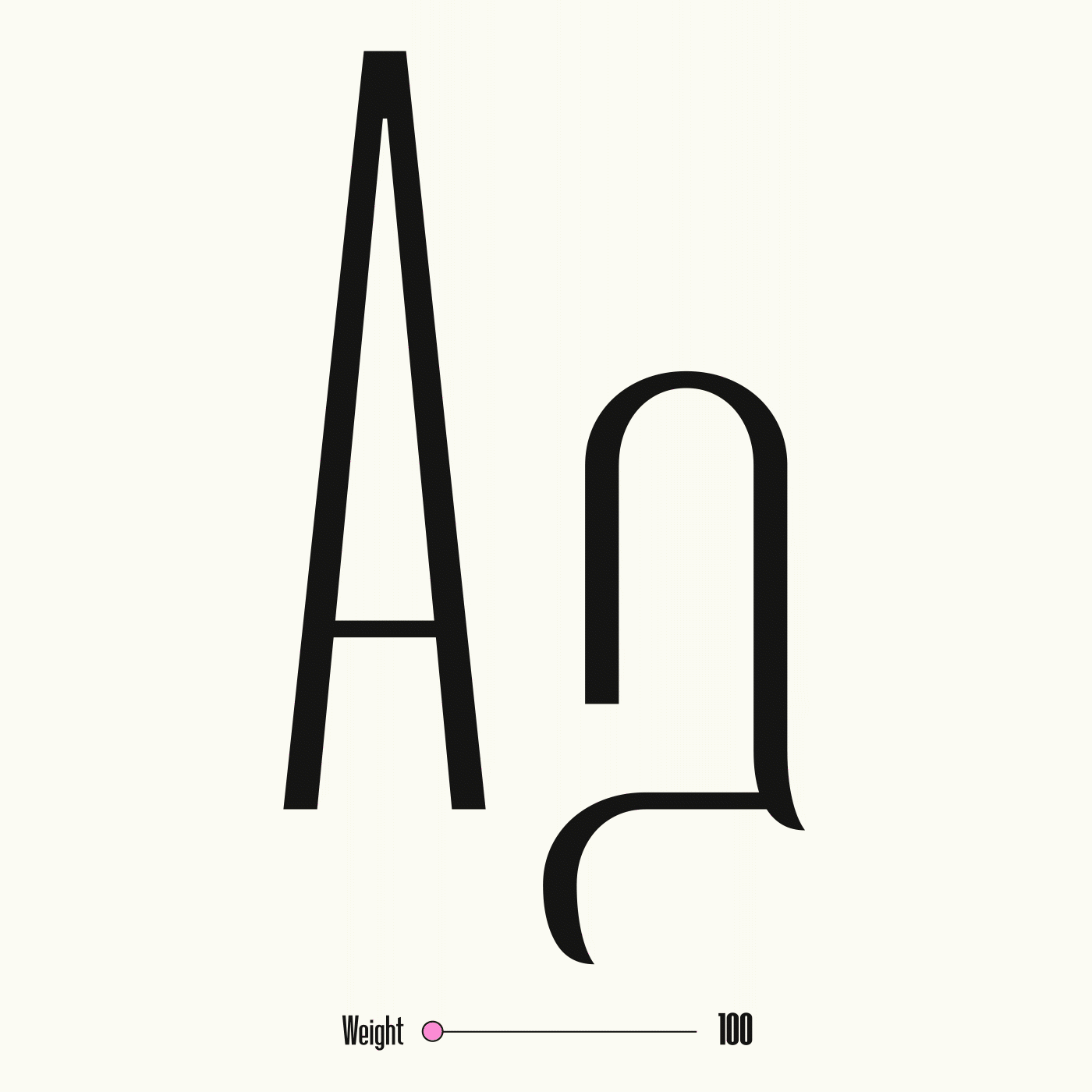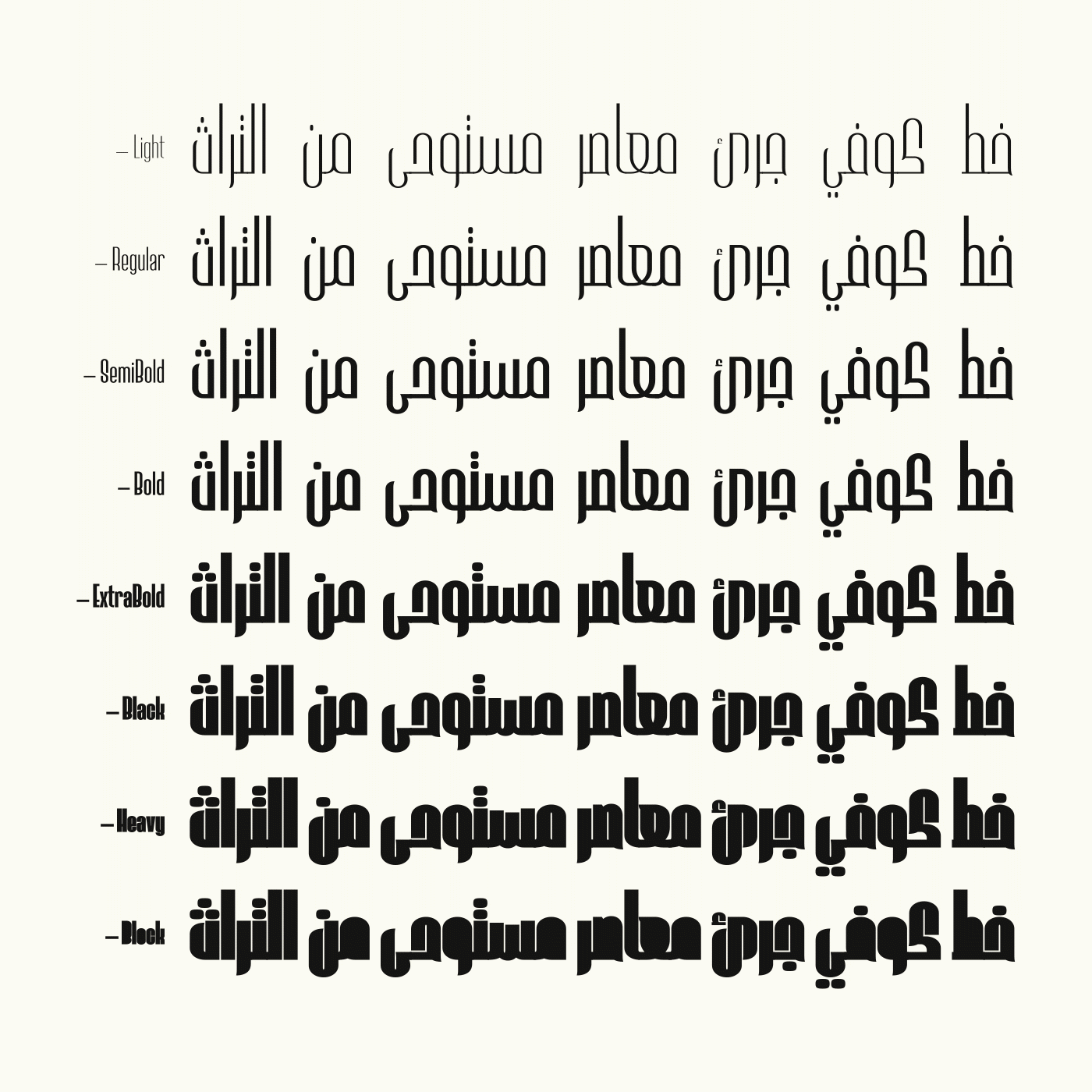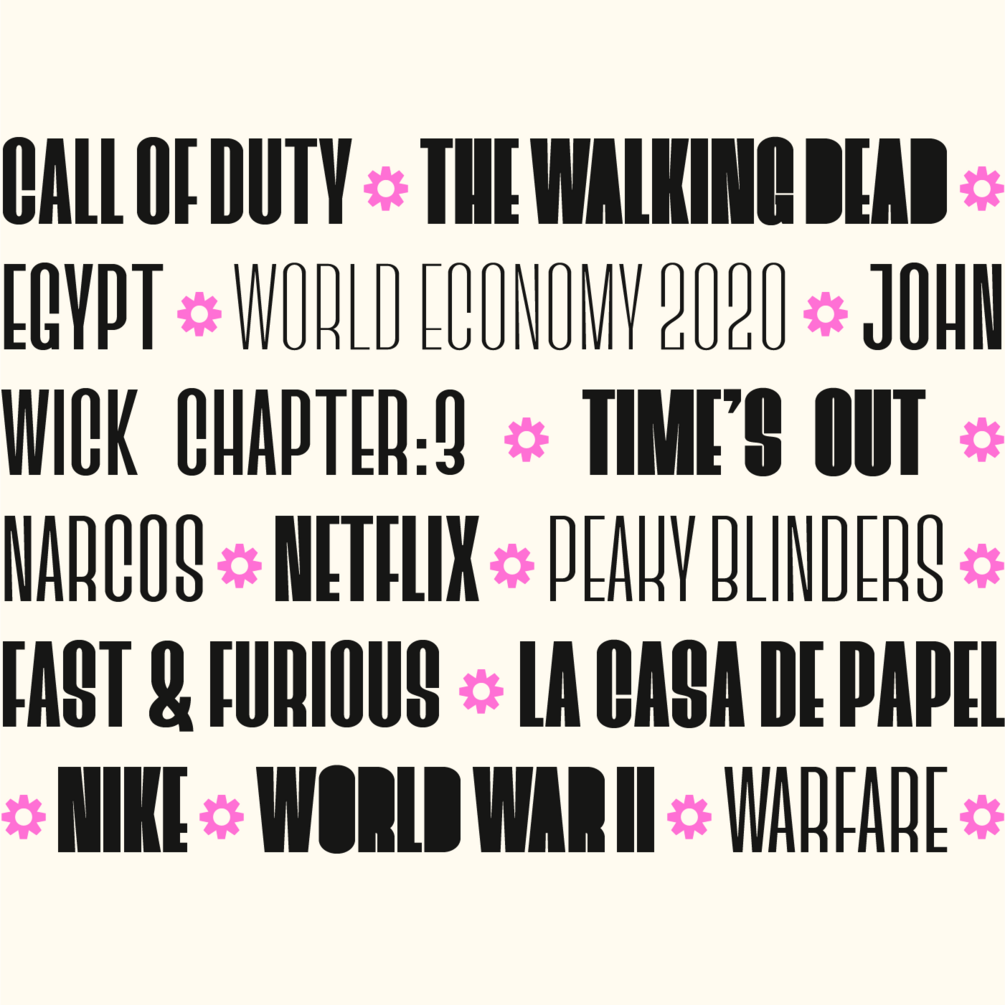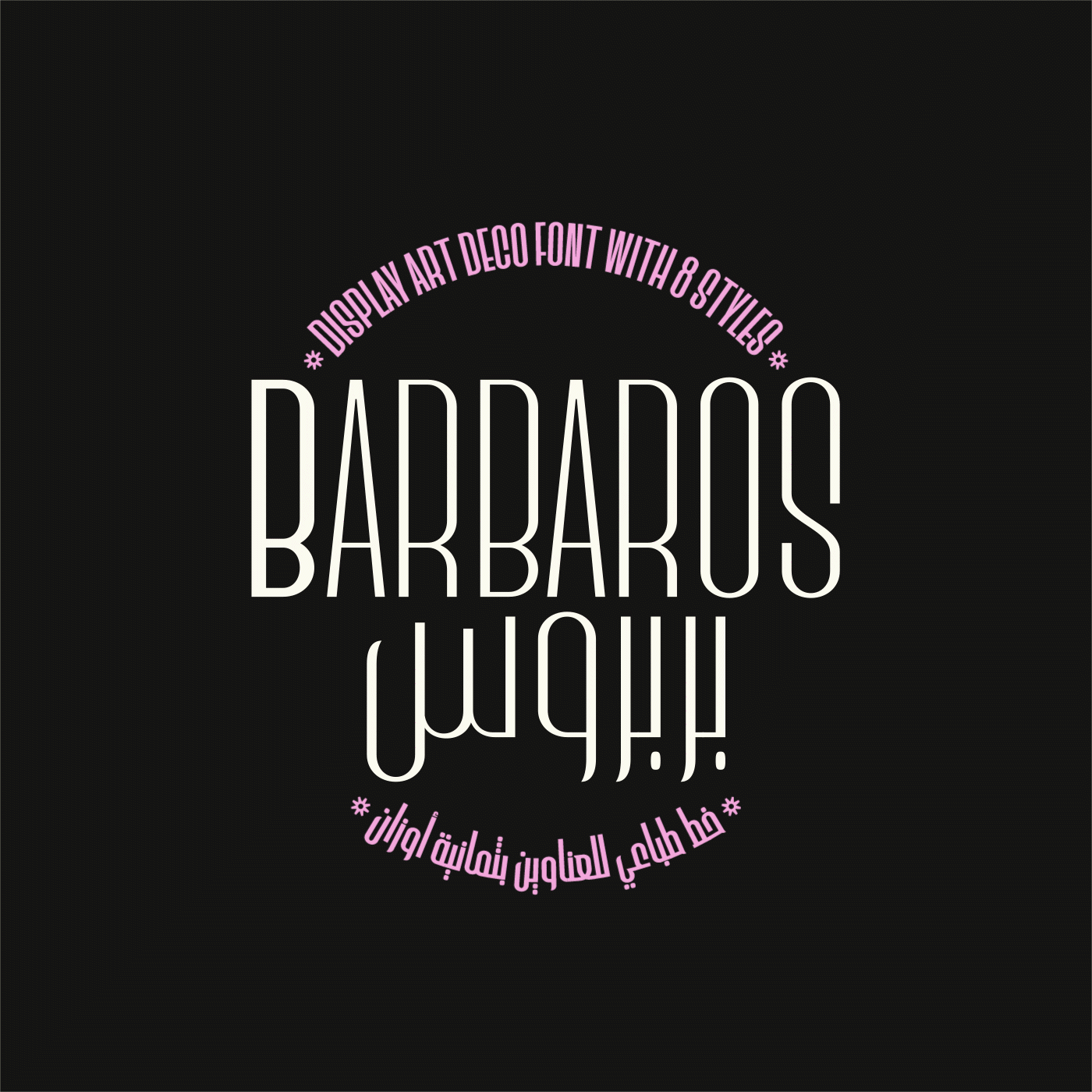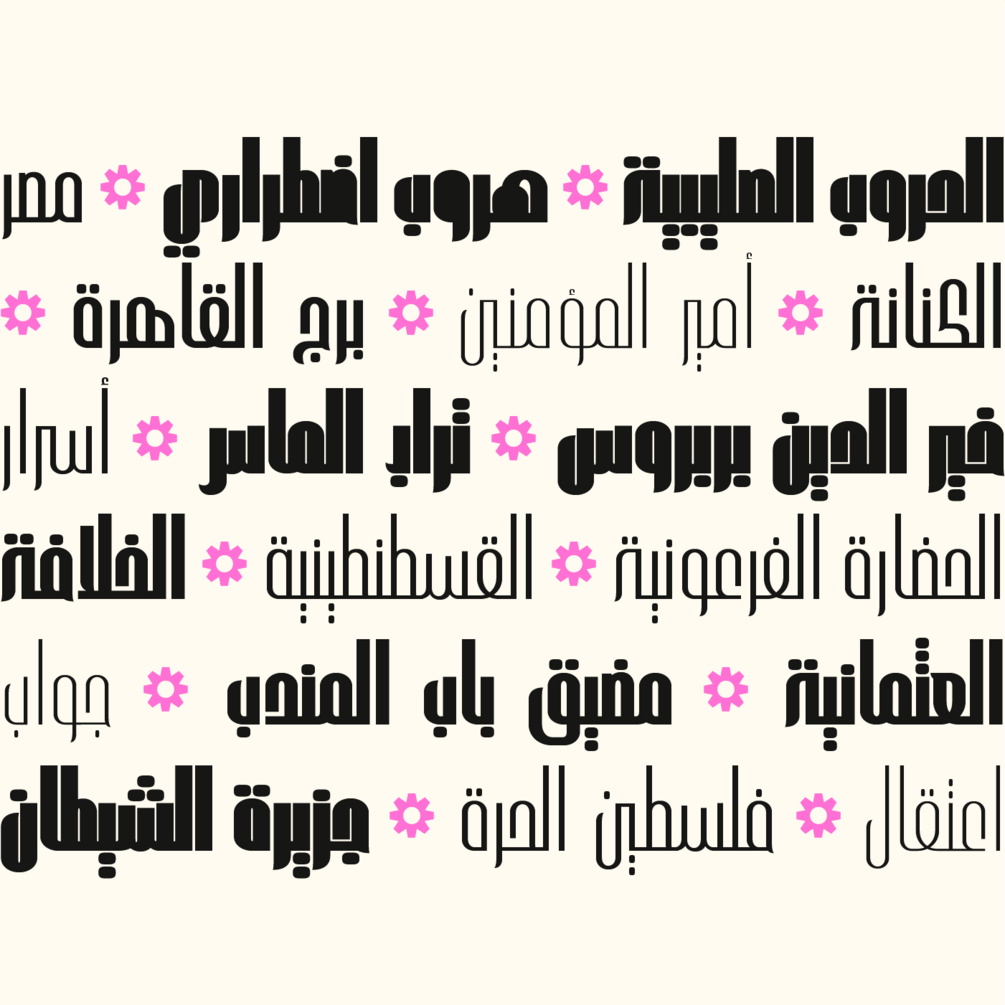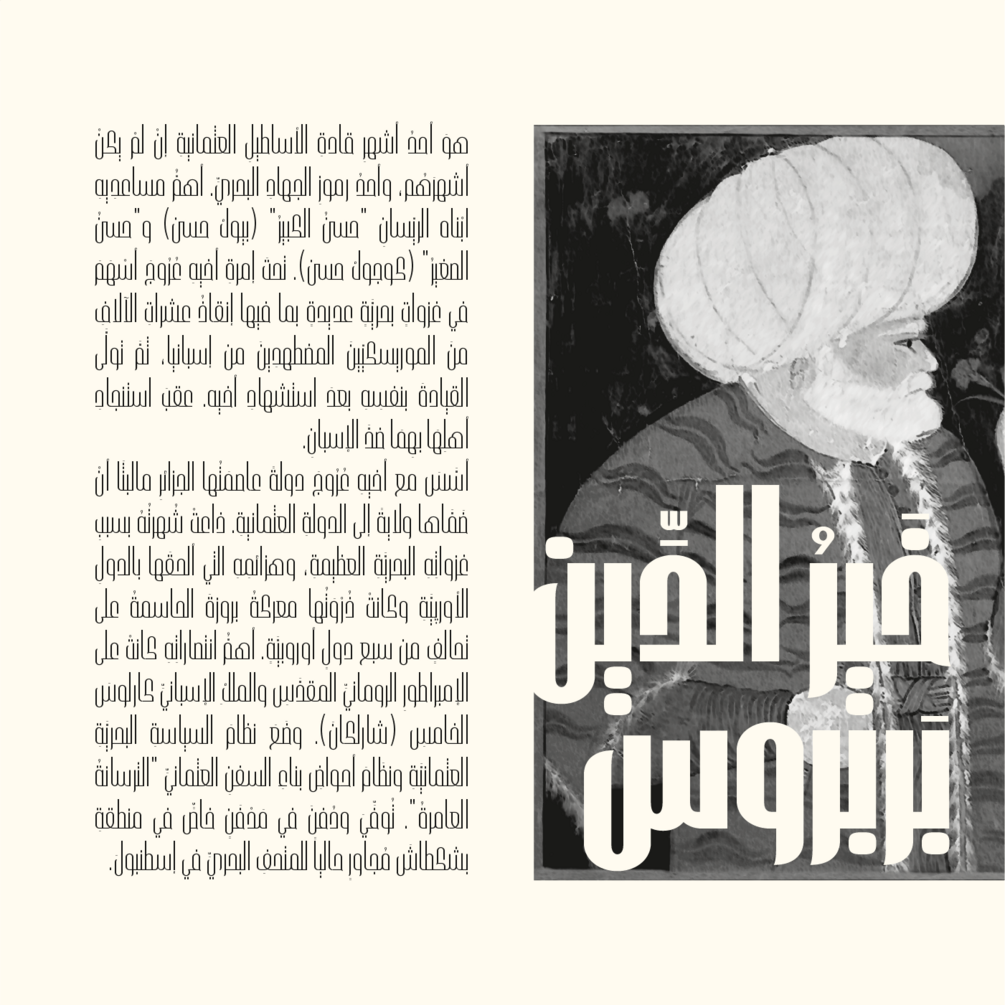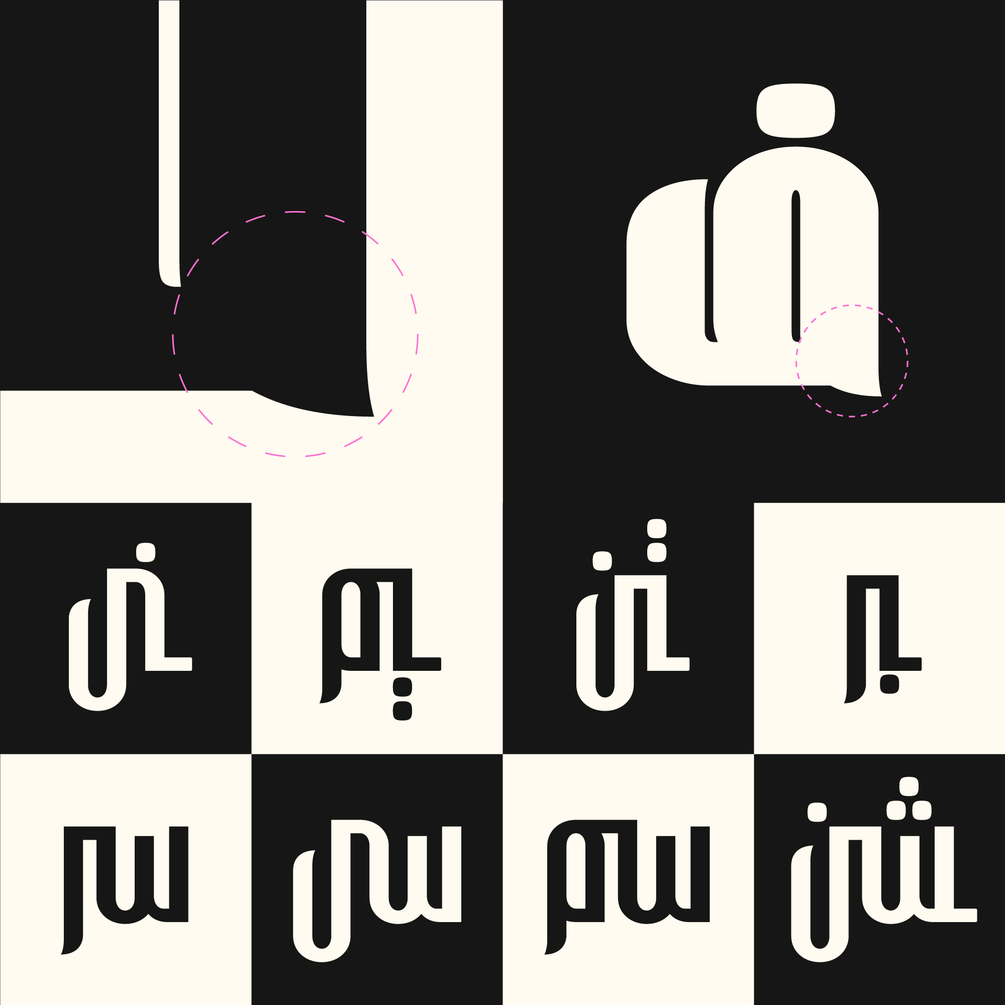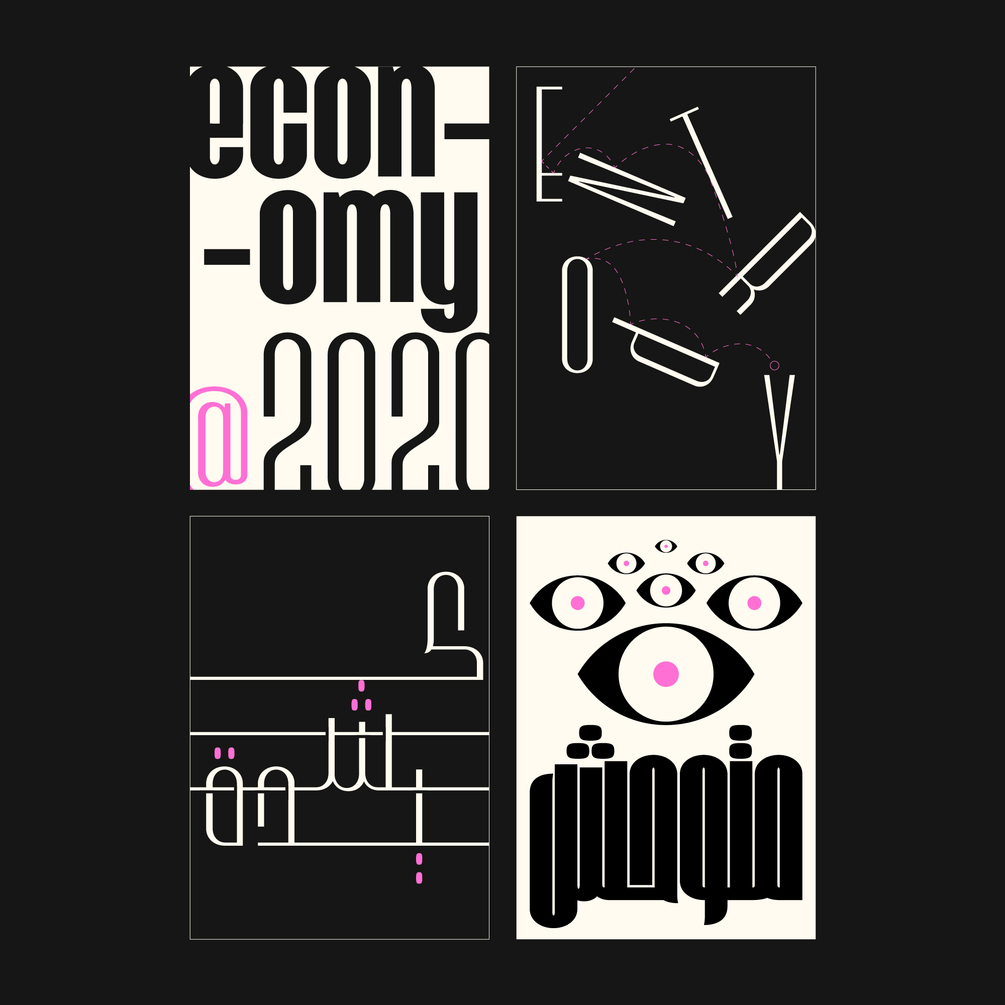
Barbaros Typeface
An art deco condensed display sans font with 8 styles, +800 glyphs, +100 ligatures, +80 languages and many opentype features.
It's bold, daring, modern, geometric.
Covers a good range of weights from light to black.
Includes a unique block style which is great for display use.
Includes open type features like stylistic sets, required ligatures, discretionary ligatures.
It is perfect for display use like poster designs, magazines, book covers, logotypes, headlines, newspapers and press.